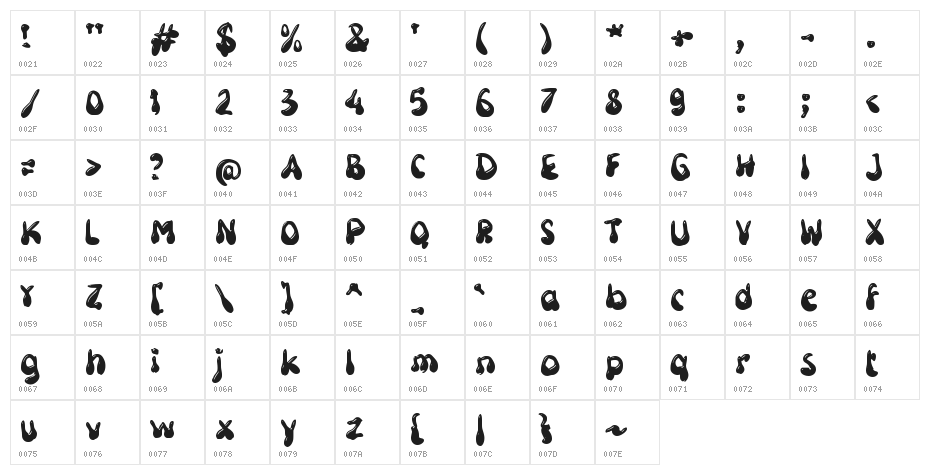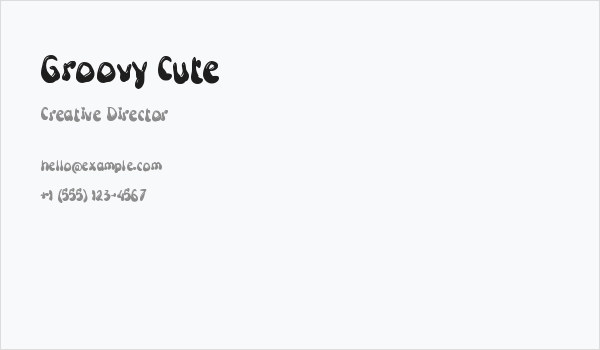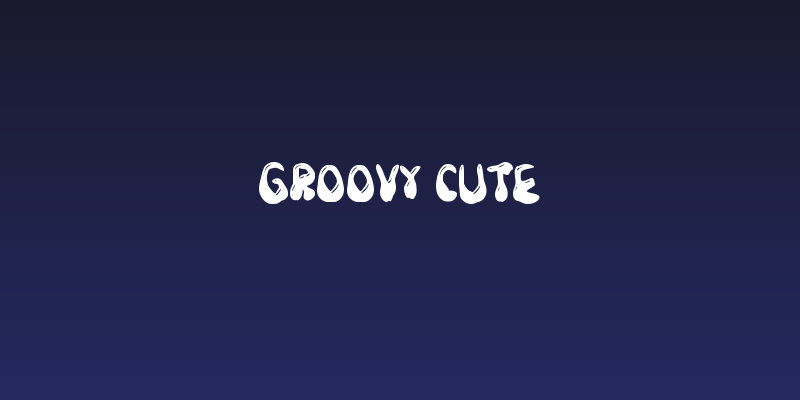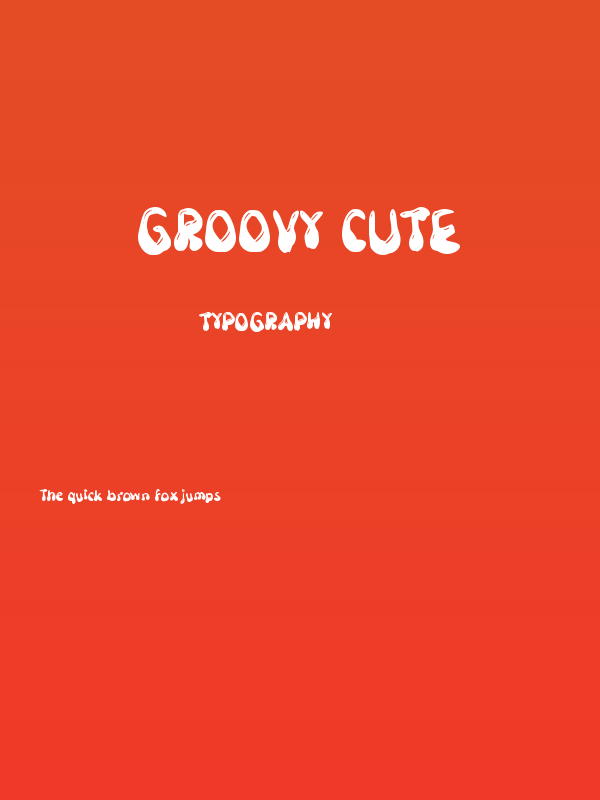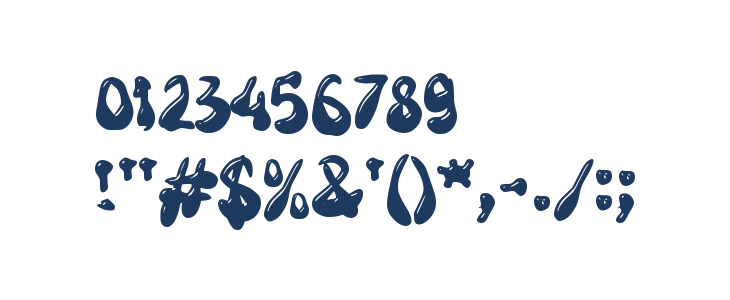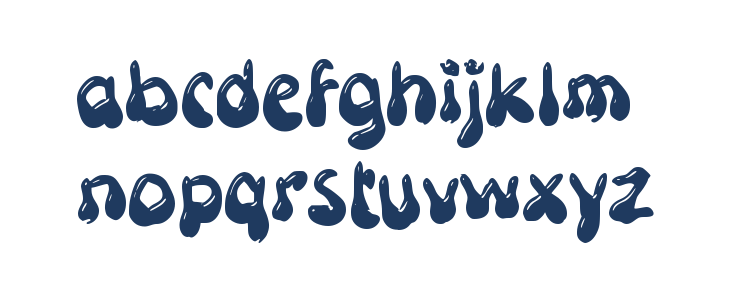
Groovy Cute Font
Groovy Cute Description
This playful and whimsical font features bold, rounded characters with a bubbly appearance. The letters are thick and have a fluid, almost liquid-like quality, giving them a dynamic and lively feel. The font's unique style is characterized by its exaggerated curves and soft edges, making it stand out with a fun and energetic vibe. It is highly decorative and captures attention with its bold presence, making it ideal for creative and informal projects. The font includes a full set of uppercase and lowercase letters, numerals, and a variety of special characters, all maintaining the same playful aesthetic.
| Proposed Projects | Perfect for children's book covers, playful branding, party invitations, and creative posters. |